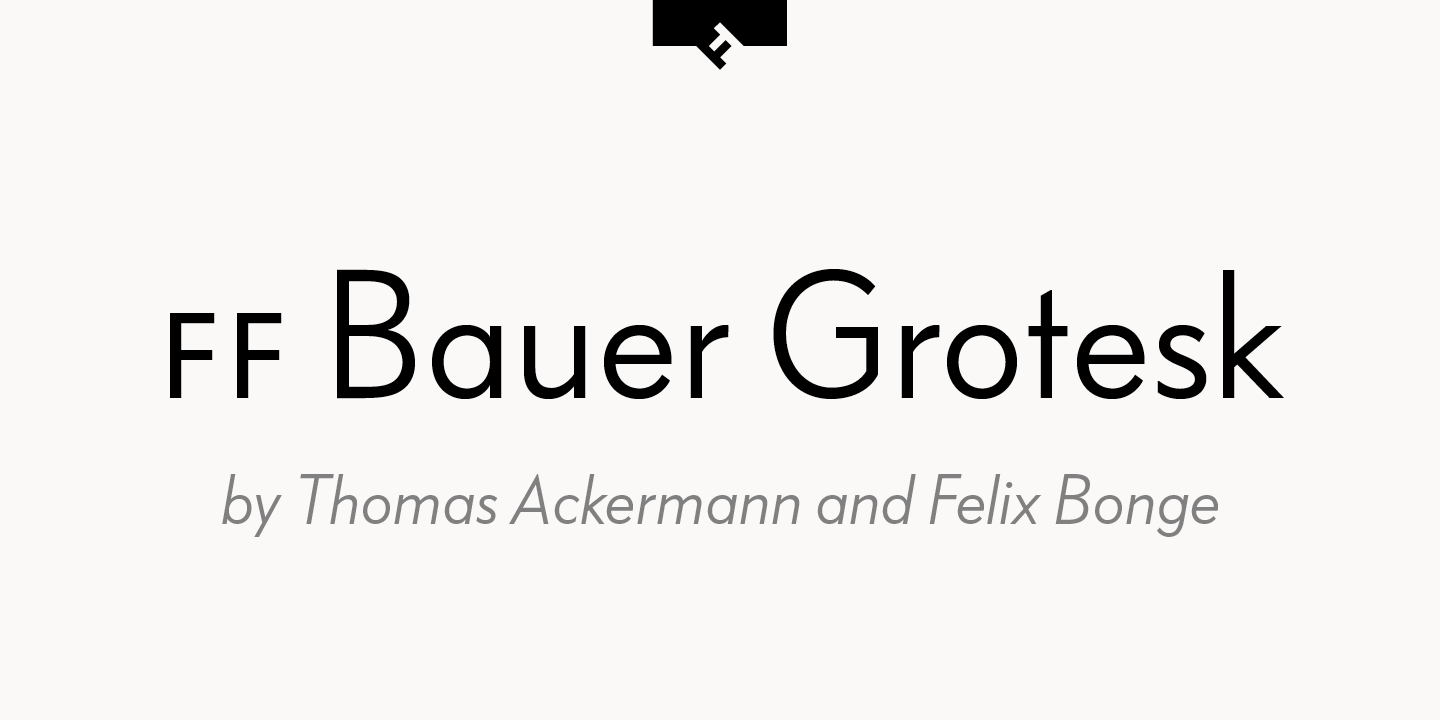
FF Bauer Grotesk Font is perfect for heritage projects including traditional German brewery branding, vintage industrial signage, historical museum exhibitions, classic European publications, authentic craftsman logos, artisanal product packaging, traditional workshop materials, and time-honored institutional communications. This distinguished typeface brings Germanic typography tradition and craftsmanship legacy to any design project.
What makes FF Bauer Grotesk Font exciting is its faithful preservation of early 20th-century Germanic sans-serif principles with authentic character and traditional craftsmanship. The historically accurate letterforms feature the distinctive proportions and subtle irregularities that defined the golden age of German typography while maintaining excellent contemporary readability. This font delivers the perfect connection to European design heritage that honors traditional values and authentic craftsmanship.
The FF Bauer Grotesk Font family typically includes multiple weights from light to bold with corresponding italic styles, complete character sets featuring uppercase and lowercase letters, numerals, punctuation, and traditional European symbols. The design incorporates authentic Germanic proportions and classical spacing that reflect historical typography standards. Premium versions include comprehensive language support and period-appropriate characters for heritage applications.
Whether you're designing for traditional brands, cultural institutions, or heritage organizations, FF Bauer Grotesk Font Free Download delivers the authentic Germanic character that establishes credibility and cultural connection. Its historical presence makes it ideal for prestigious logos and communications that need to convey tradition and craftsmanship excellence. The font's European heritage ensures it communicates quality and authenticity, making it perfect for any project requiring the respected aesthetic of Germanic typography tradition and artisanal excellence.